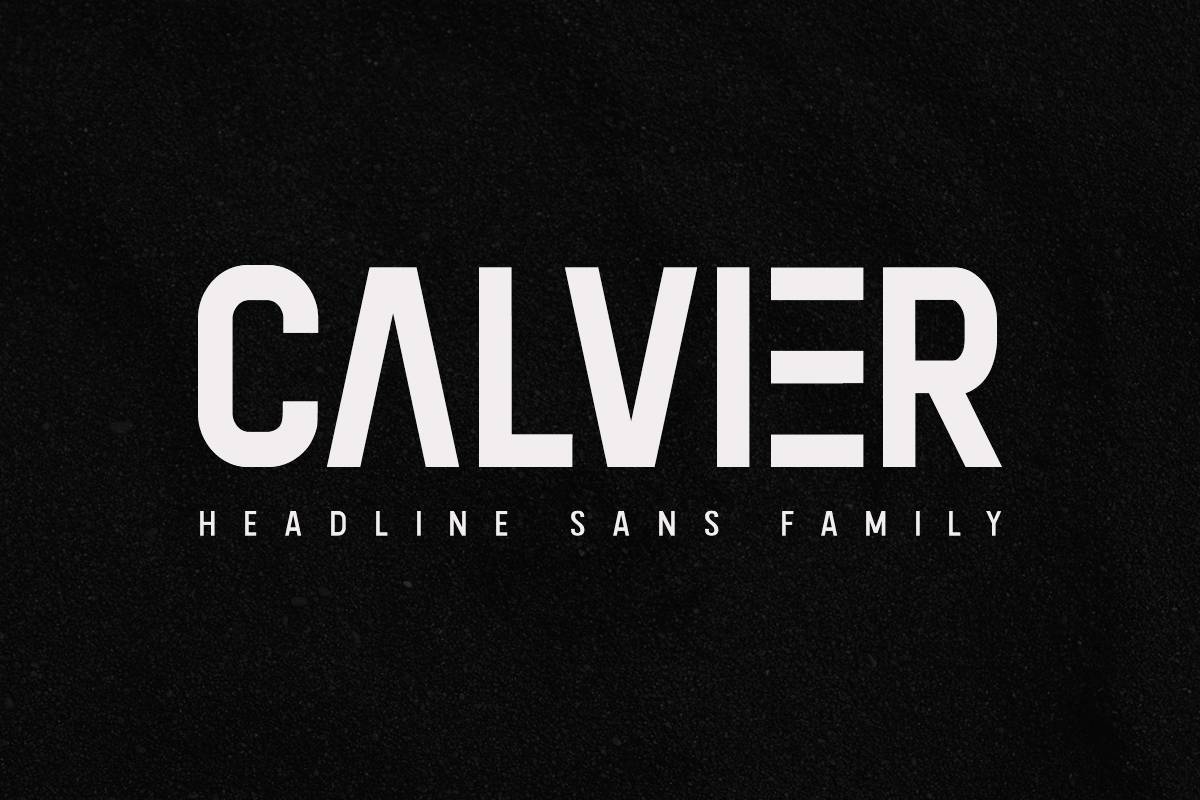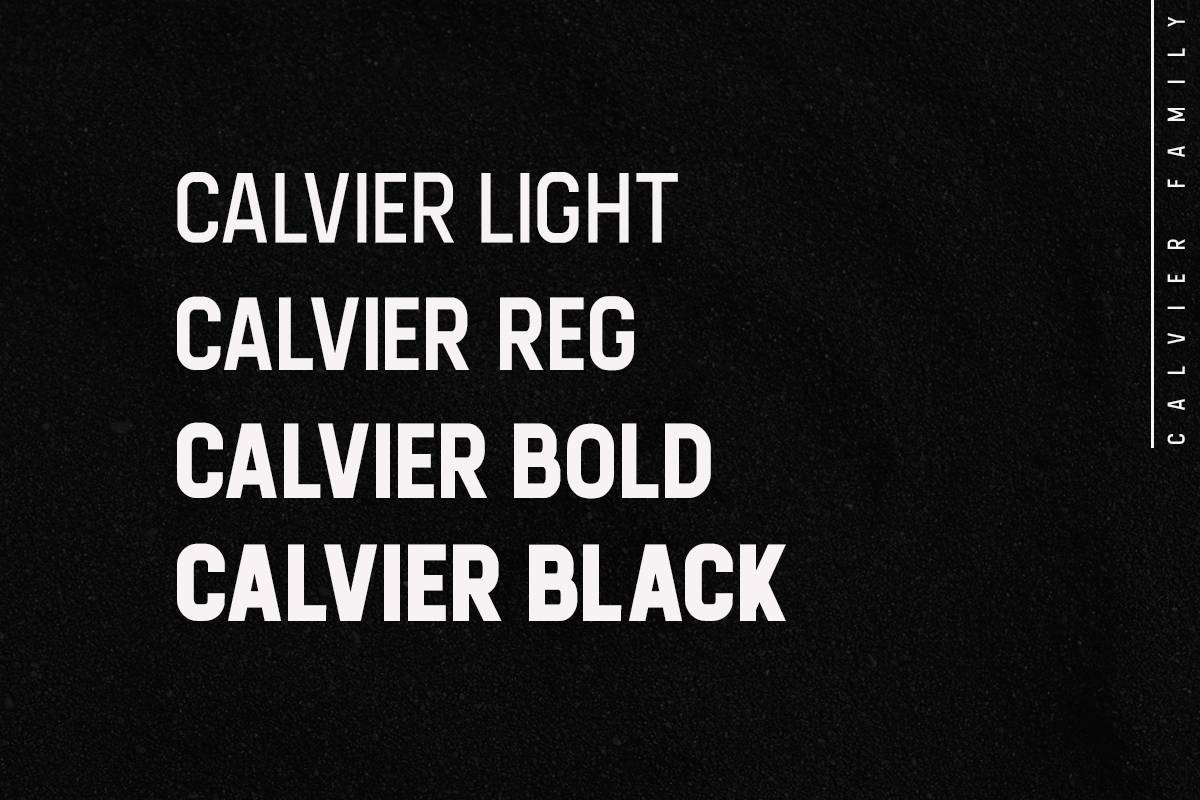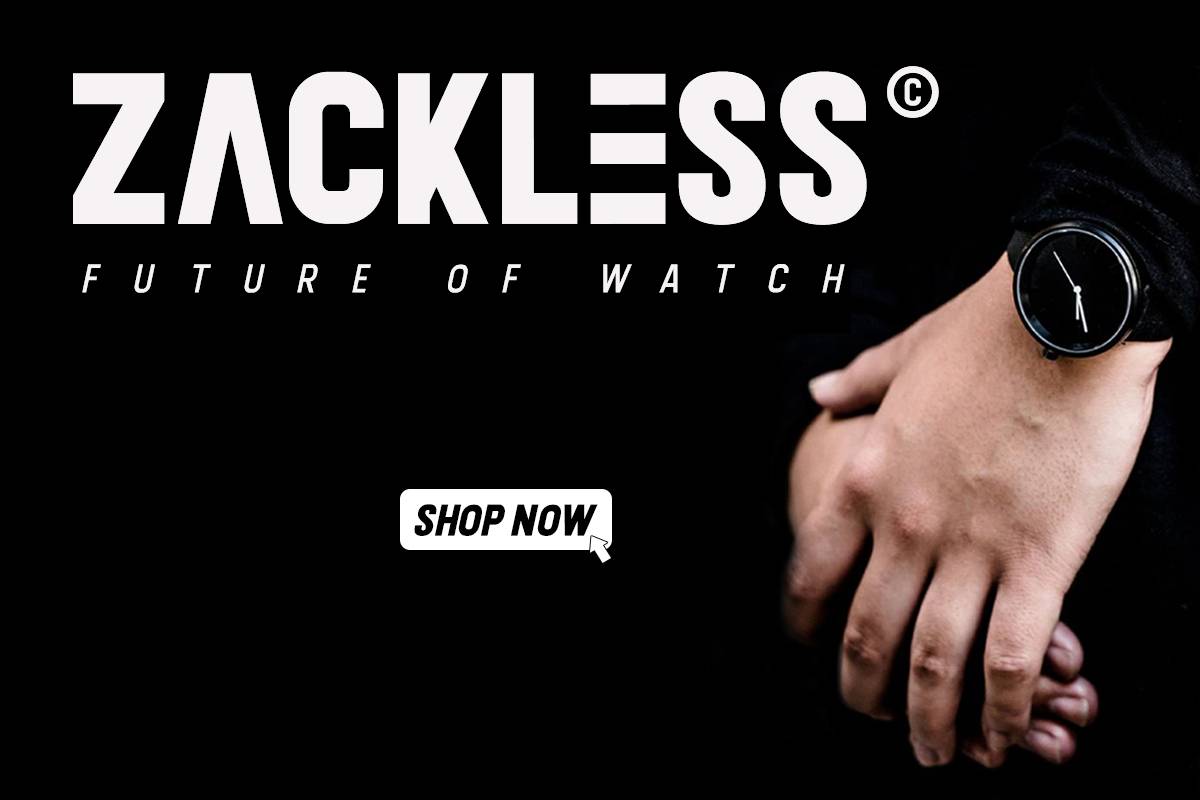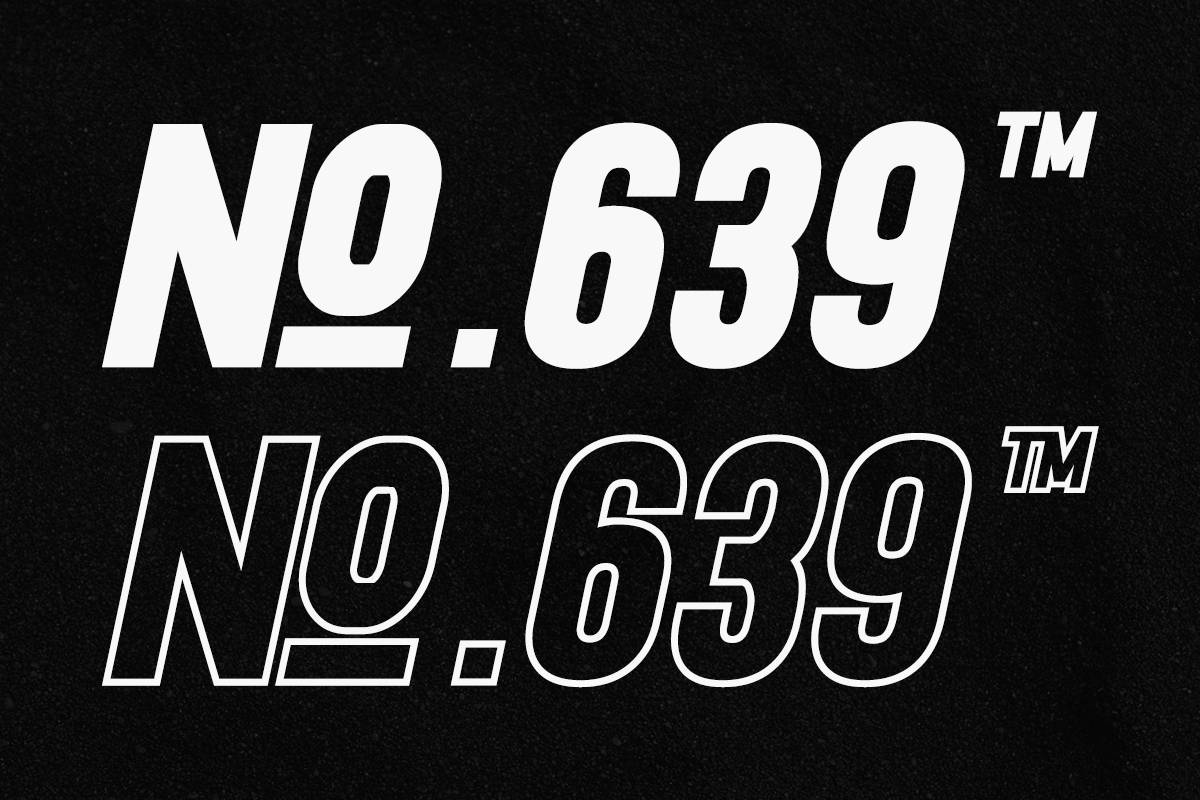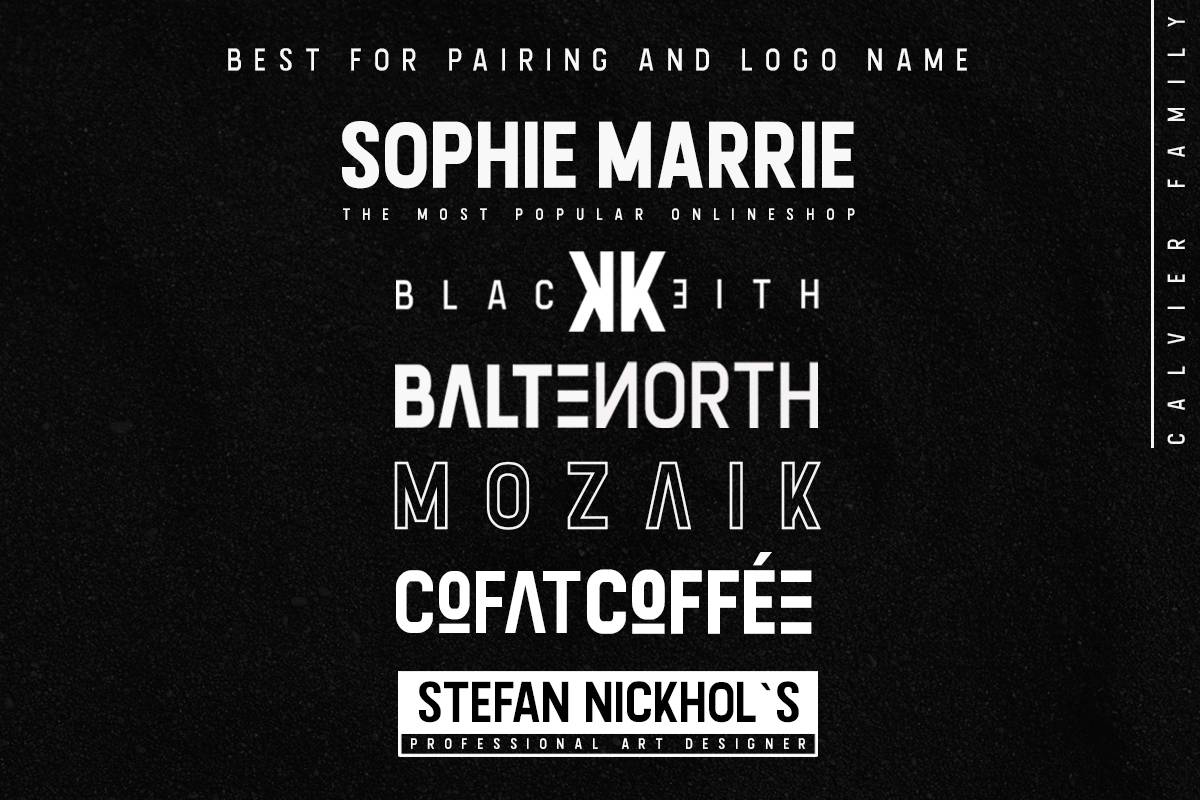
Calvier is a bold, condensed sans-serif font with a strong, modern presence. Its tightly spaced letters and uniform stroke weight make it highly impactful for headlines, logos, and branding that demand attention and clarity. This font’s straightforward, no-nonsense style works well for contemporary designs needing a clean and confident voice.
Calvier
About Calvier
| Font family | Calvier |
| Designer | MLKWSN 2018 |